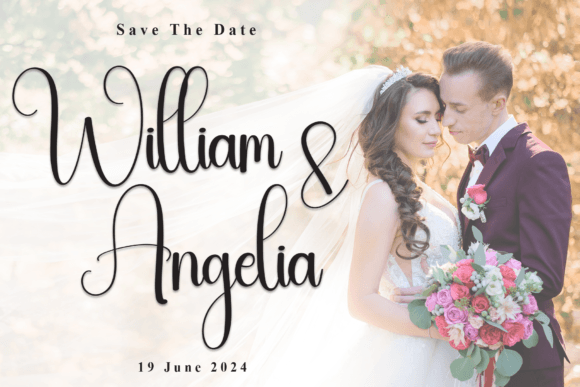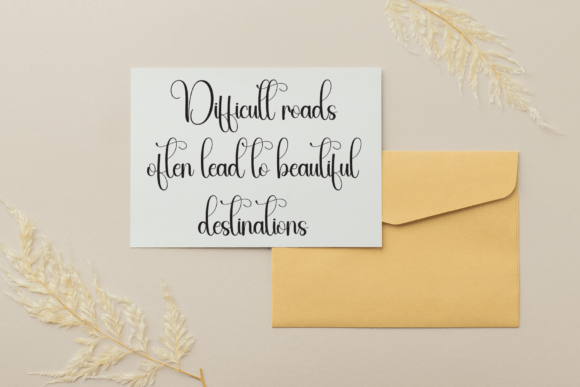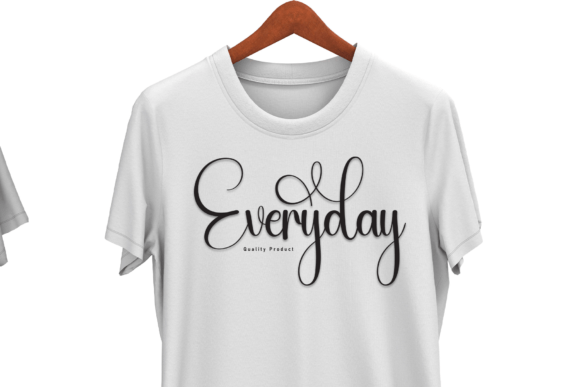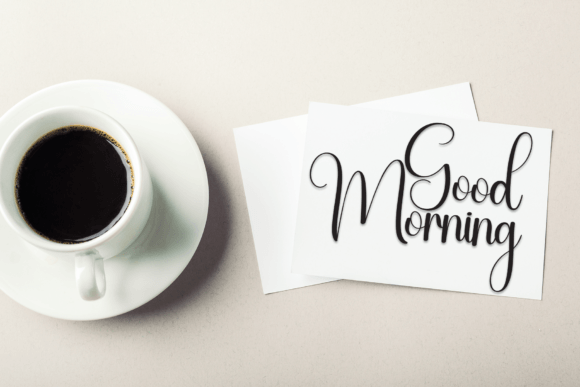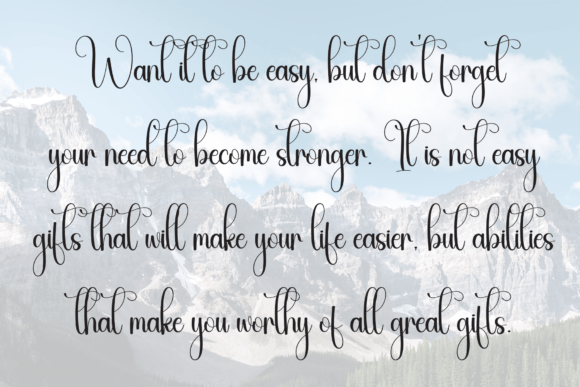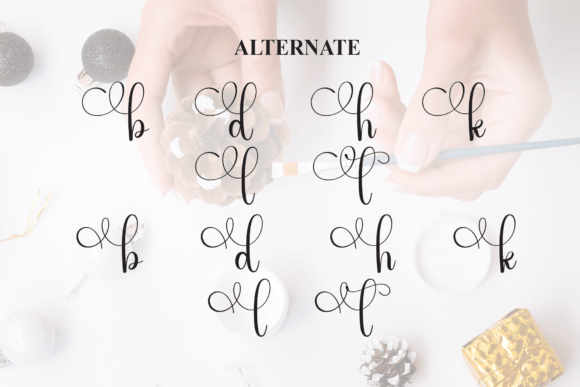
Introducing Handamade Font: The Timeless Handwritten Font for Stunning Designs
Are you a designer or crafter looking for a font that can add a personal touch to your creations? Look no further than Handamade Font, a lovely and timeless handwritten font that is perfect for creating eye-catching logos, branding, and quotes. With its unique and beautiful touch, Handamade Font is sure to make your design come alive!
Handwritten fonts have a special charm that can add a touch of warmth and personality to any design. They evoke a sense of human touch and can make your design stand out from the crowd. Handamade Font is a beautiful example of a handwritten font that can add a touch of elegance and sophistication to your designs.
What Makes Handamade Font Special?
So, what makes Handamade Font special? Here are a few features that set it apart:
- Unique and Beautiful Touch: Every letter in Handamade Font has a unique and beautiful touch that will make your design stand out. The font is carefully crafted to ensure that each letter is distinct and visually appealing.
- Timeless Design: Handamade Font has a timeless design that will never go out of style. Its classic look and feel make it perfect for creating designs that are both modern and vintage.
Handamade Font is perfect for designers and crafters who want to add a personal touch to their creations. Here are a few ways you can use Handamade Font:
- Logos and Branding: Use Handamade Font to create eye-catching logos and branding materials that will make your business stand out.
- Quotes and Posters: Create stunning quotes and posters using Handamade Font. Its elegant look and feel make it perfect for creating inspirational quotes and posters.
- Stationery and Cards: Use Handamade Font to create beautiful stationery and cards that will add a personal touch to your correspondence.
In conclusion, Handamade Font is a lovely and timeless handwritten font that is perfect for creating eye-catching logos, branding, and quotes. Its unique and beautiful touch makes it a great choice for designers and crafters who want to add a personal touch to their creations. With its ease of use and timeless design, Handamade Font is sure to become a favorite in your design arsenal.